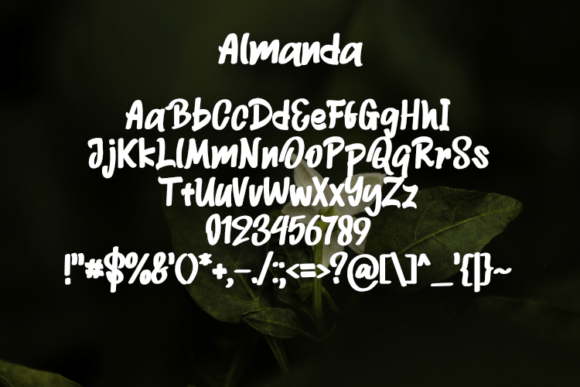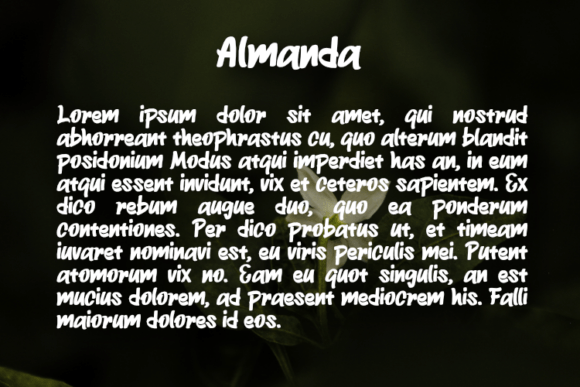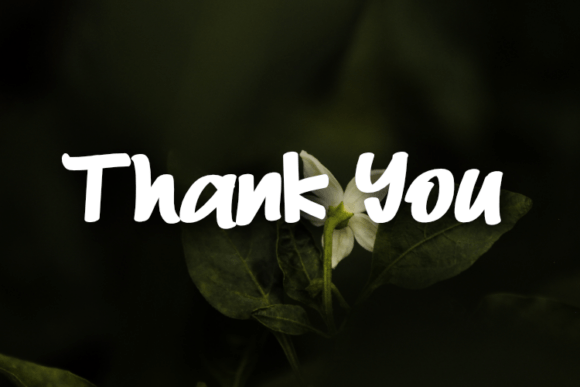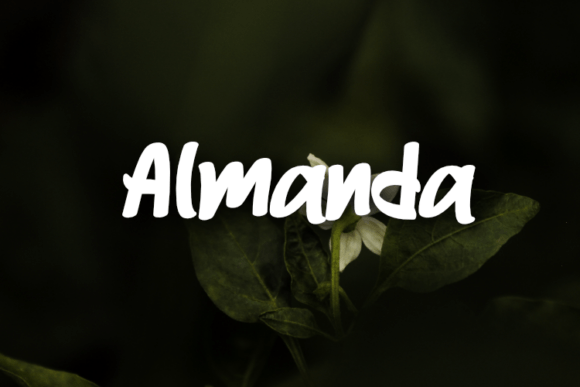
Unleash Your Design Potential with Almanda Font
Are you a designer, crafter, or entrepreneur looking to elevate your brand and products with a unique and versatile font? Look no further than Almanda Font, a game-changing typeface designed to bring life to your clothing designs, T-shirts, and other product lines. With its adaptive and elegant features, Almanda is the perfect choice for anyone seeking to add a touch of sophistication and creativity to their designs.
The Power of Almanda Font
Almanda Font is more than just a font – it’s a key component to unlocking your design potential. Its unique elegance and versatility make it an ideal choice for a wide range of design applications, from fashion and apparel to home decor and accessories. Whether you’re a seasoned designer or just starting out, Almanda provides the perfect foundation for creating stunning and professional-looking designs.
With Almanda Font, the design possibilities are endless. Use it to create eye-catching T-shirt designs, elegant product labels, or sophisticated branding materials. Its adaptability and versatility make it an excellent choice for:
- Fashion and apparel design
- Home decor and accessory design
- Stationery and paper products
- Signage and display design
- Digital graphics and social media assets
Whether you’re designing for print or digital, Almanda Font provides the perfect foundation for creating stunning and professional-looking designs.
What Sets Almanda Apart
So, what sets Almanda Font apart from other fonts on the market? Here are just a few key features that make it a game-changer:
- Unique Elegance: Almanda boasts a distinctive and sophisticated style that adds a touch of elegance to any design.
- Versatility: Its adaptability makes it suitable for a wide range of design applications and industries.
Elevate Your Designs with Almanda
Ready to take your designs to the next level? With Almanda Font, you can:
- Create stunning and professional-looking designs that stand out from the crowd.
- Add a touch of elegance and sophistication to your brand and products.
- Unlock your design potential and bring your creative vision to life.
Don’t settle for ordinary fonts that lack personality and style. Choose Almanda Font for your next design project and experience the difference for yourself.
In conclusion, Almanda Font is a game-changing typeface that offers designers, crafters, and entrepreneurs a unique and versatile tool for elevating their brand and products. With its adaptive and elegant features, seamless compatibility, and flexible file formats, Almanda is the perfect choice for anyone seeking to add a touch of sophistication and creativity to their designs. So why wait? Discover the power of Almanda Font today and unlock your design potential!